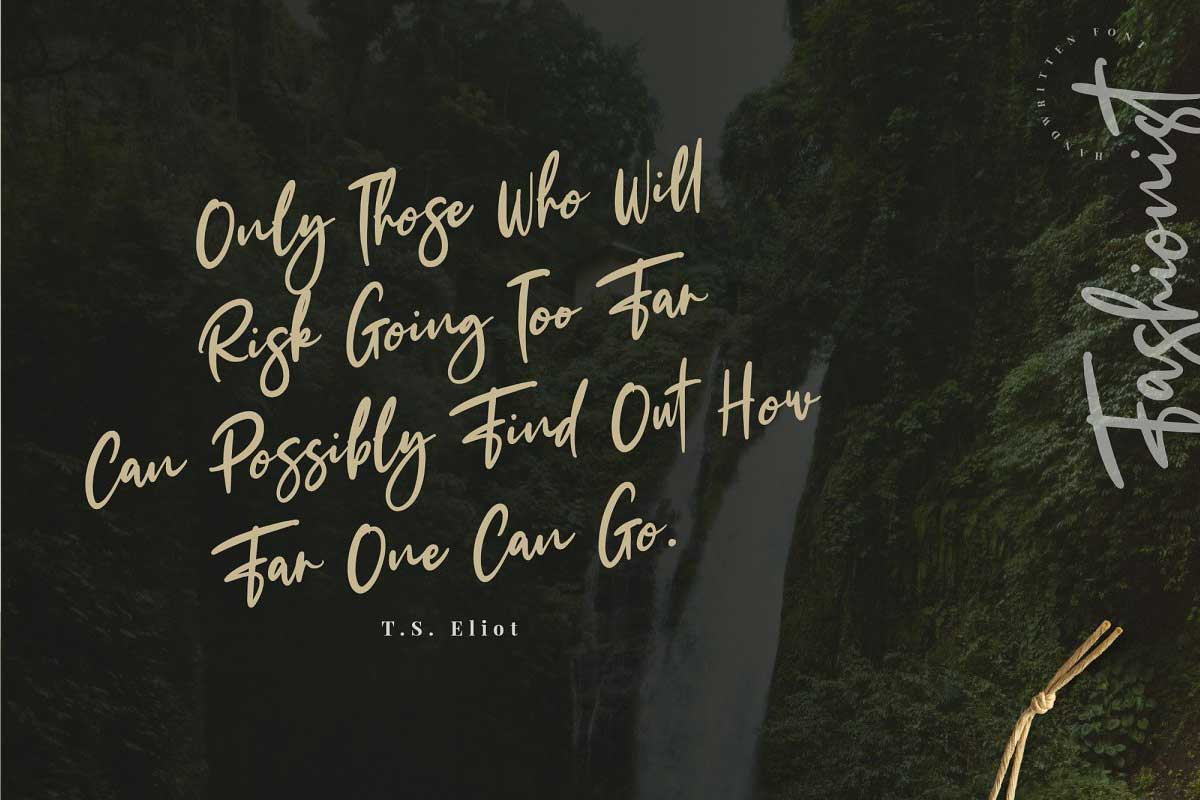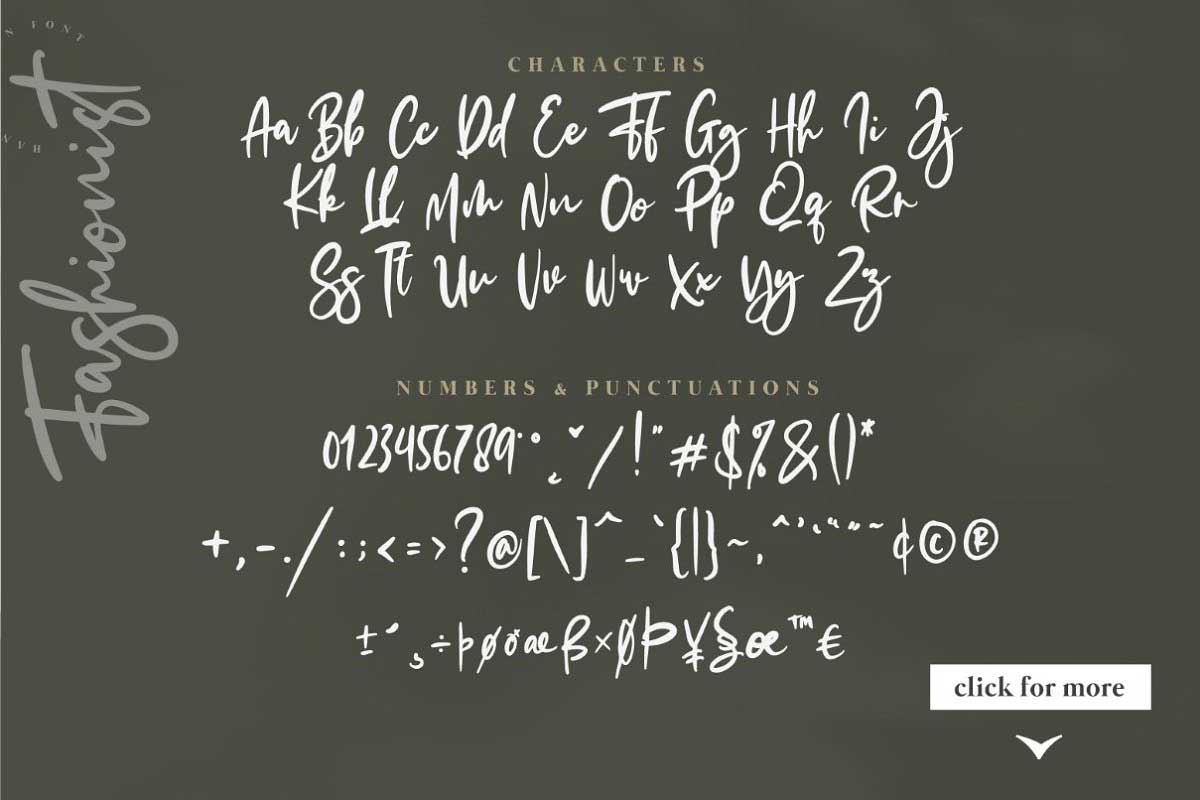
The Fashionist + Extras Font
Today I’m introducing you to a new handwriting font name called The Fashionist Extra. This typeface designed by Mas Anis you can also check his fashionist font selling page. This Font Are Perfect For the logo, invitation, stationery, wedding designs, social media posts, advertisements, product packaging, product designs, label, photography, watermark, special events or anything.